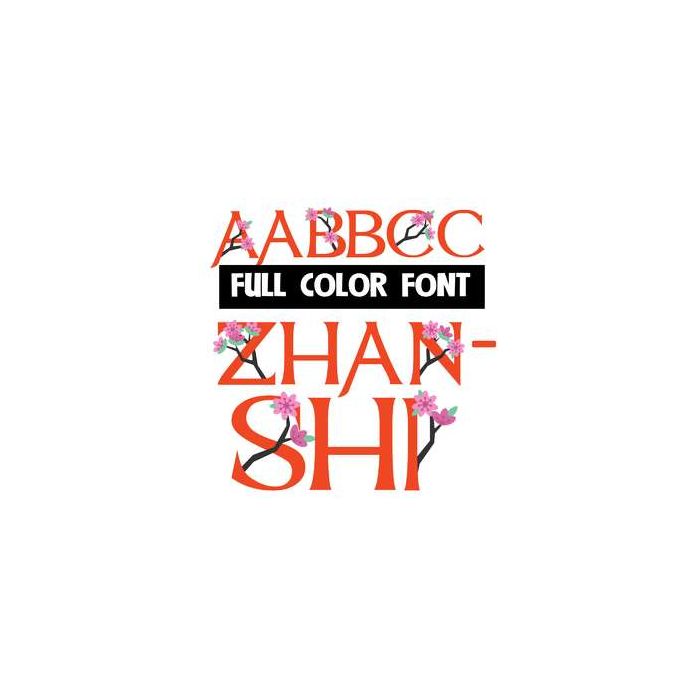
This full-color font features red letters with cherry blossoms on the uppercase. This font works best for titles, displays, posters and more. Please note color fonts will show as black in non compatible programs. This font type is compatible with Silhouette Studio.